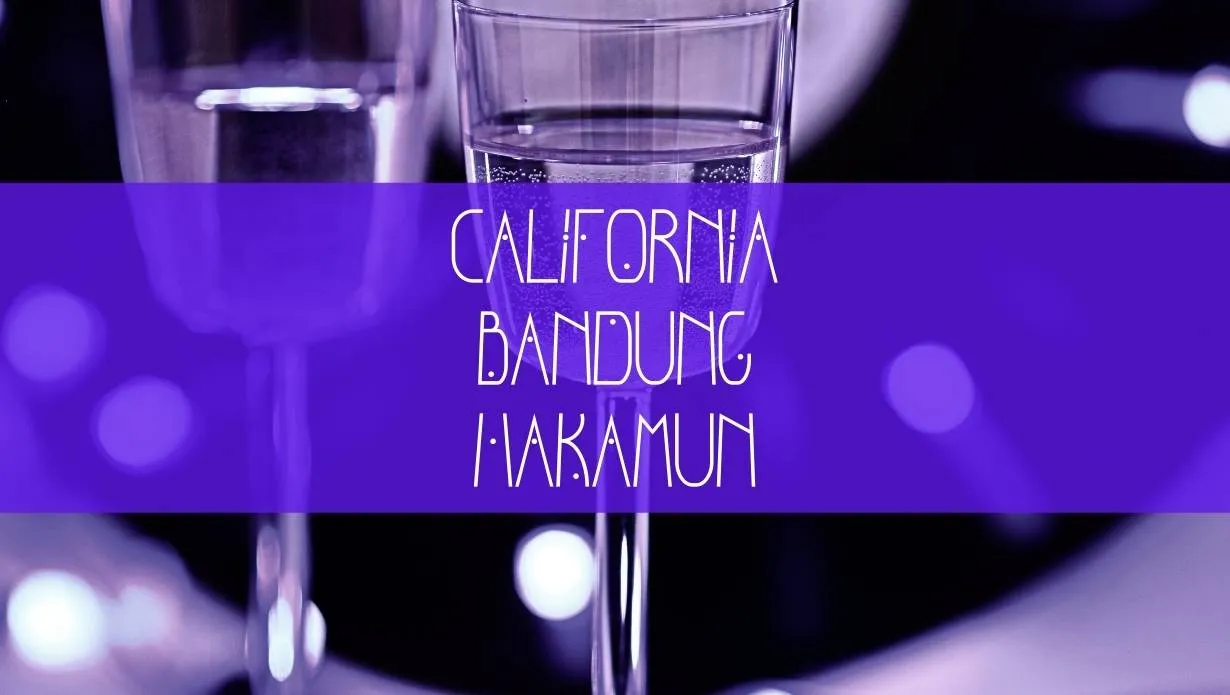
Arcanista Font is a fancy font created by Japanese typeface designer Yosuke Sugiura. It is characterized by its unique and quirky style, which makes it perfect for use in headers and titles. This Font is available in both regular and italic versions, making it perfect for creating dynamic designs.
- Arcanista Regular